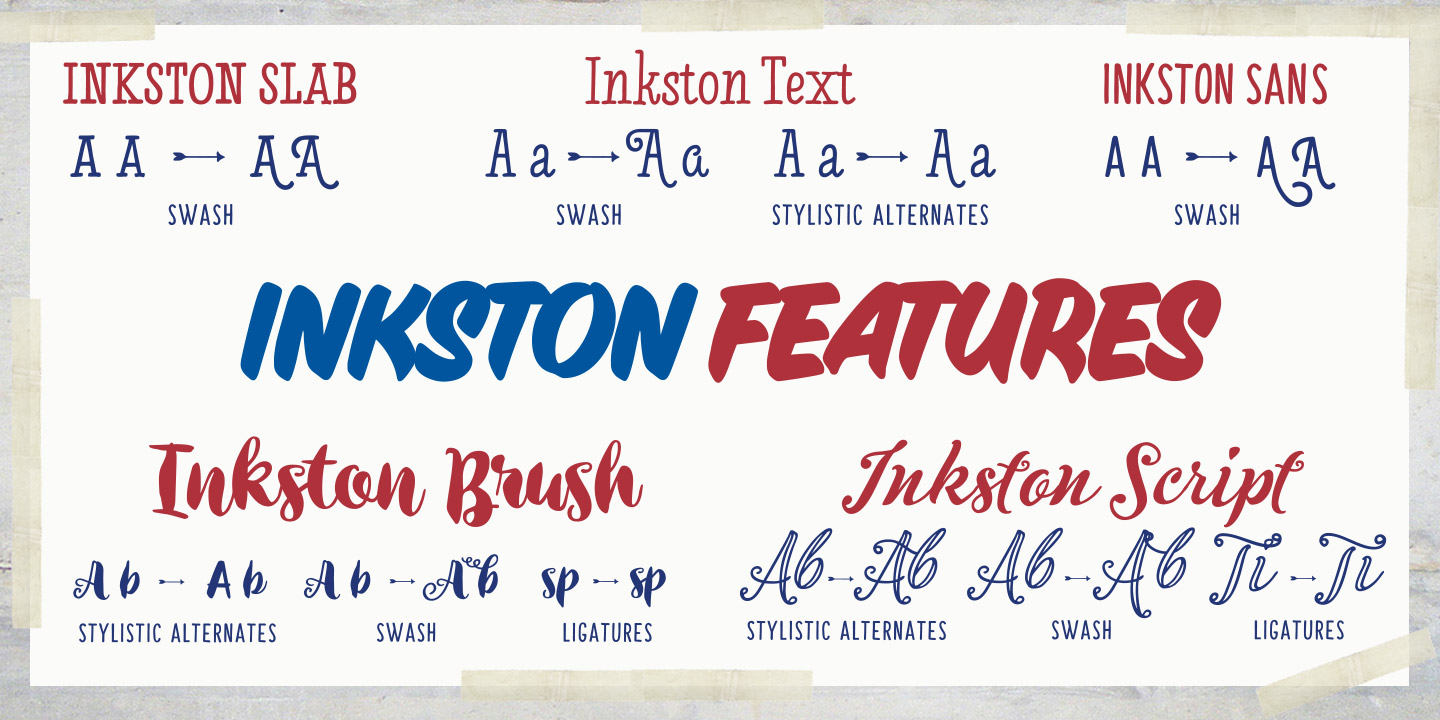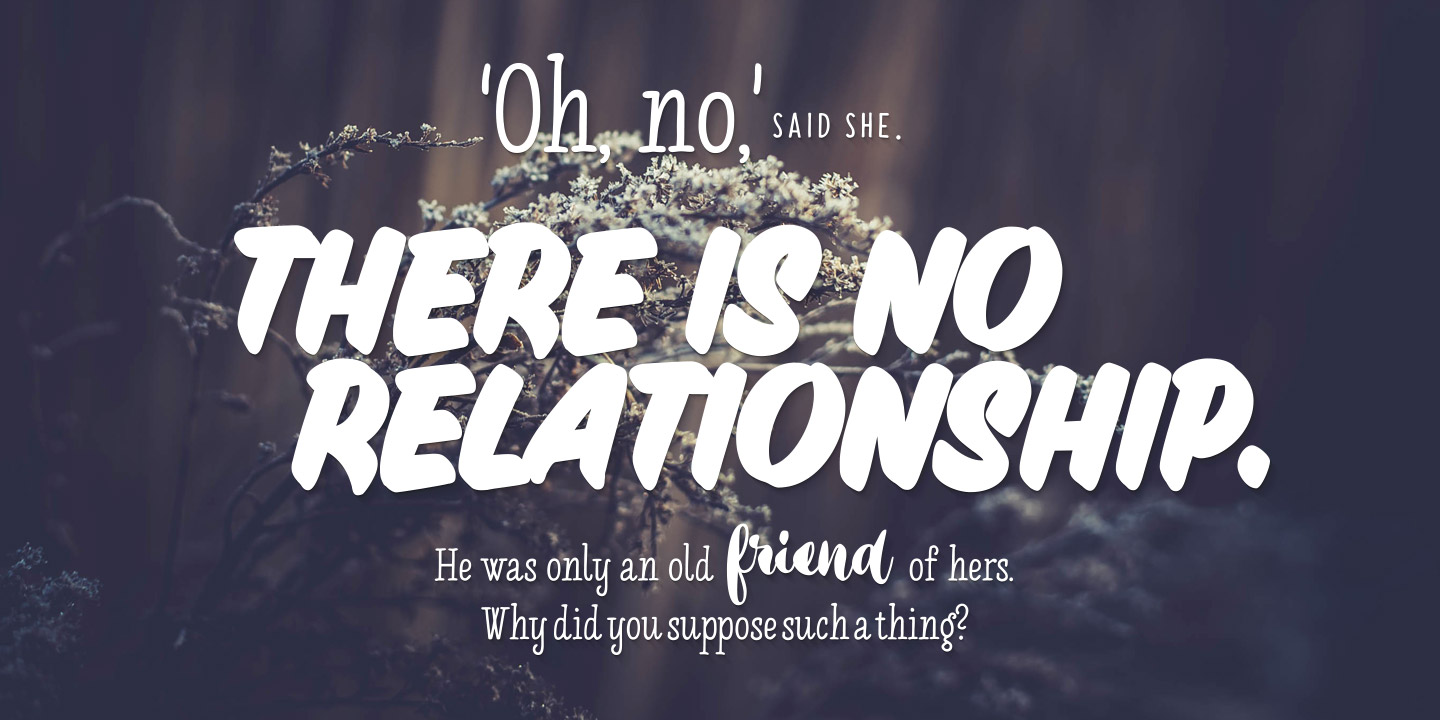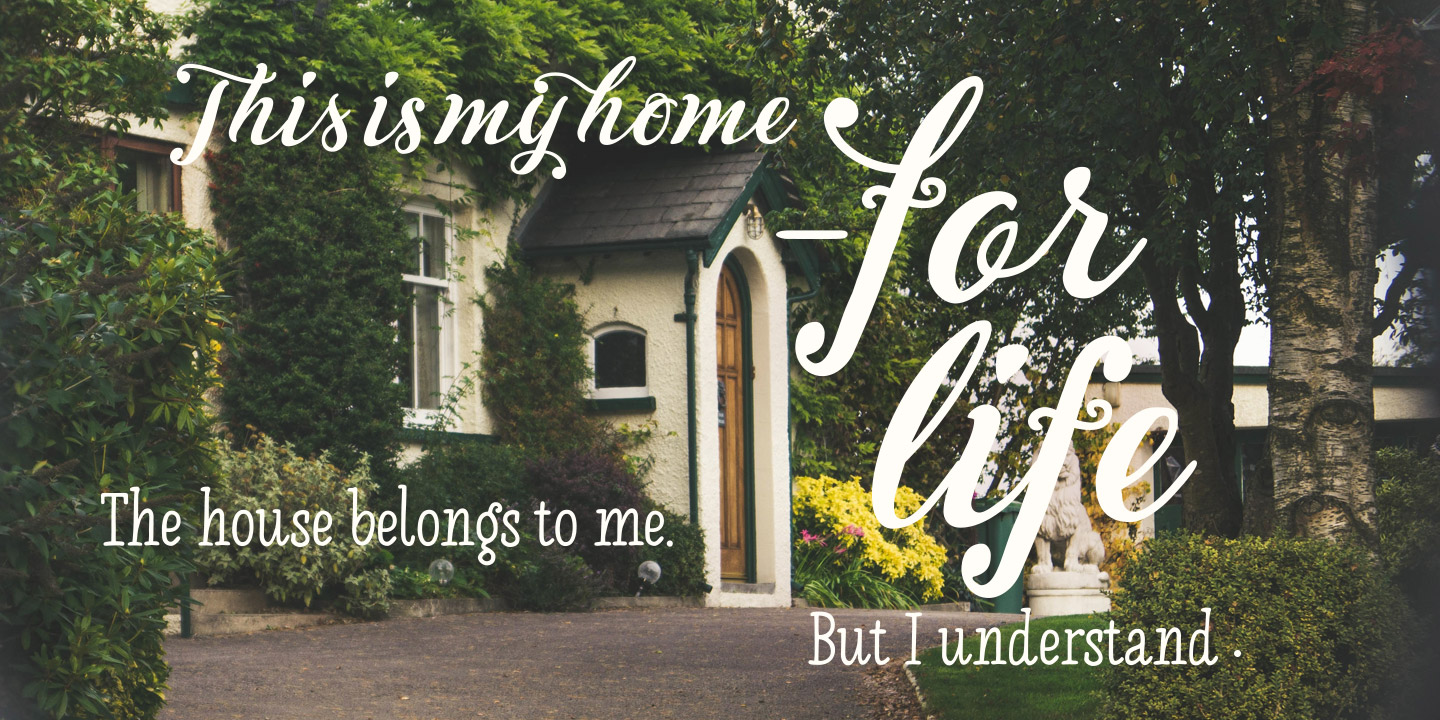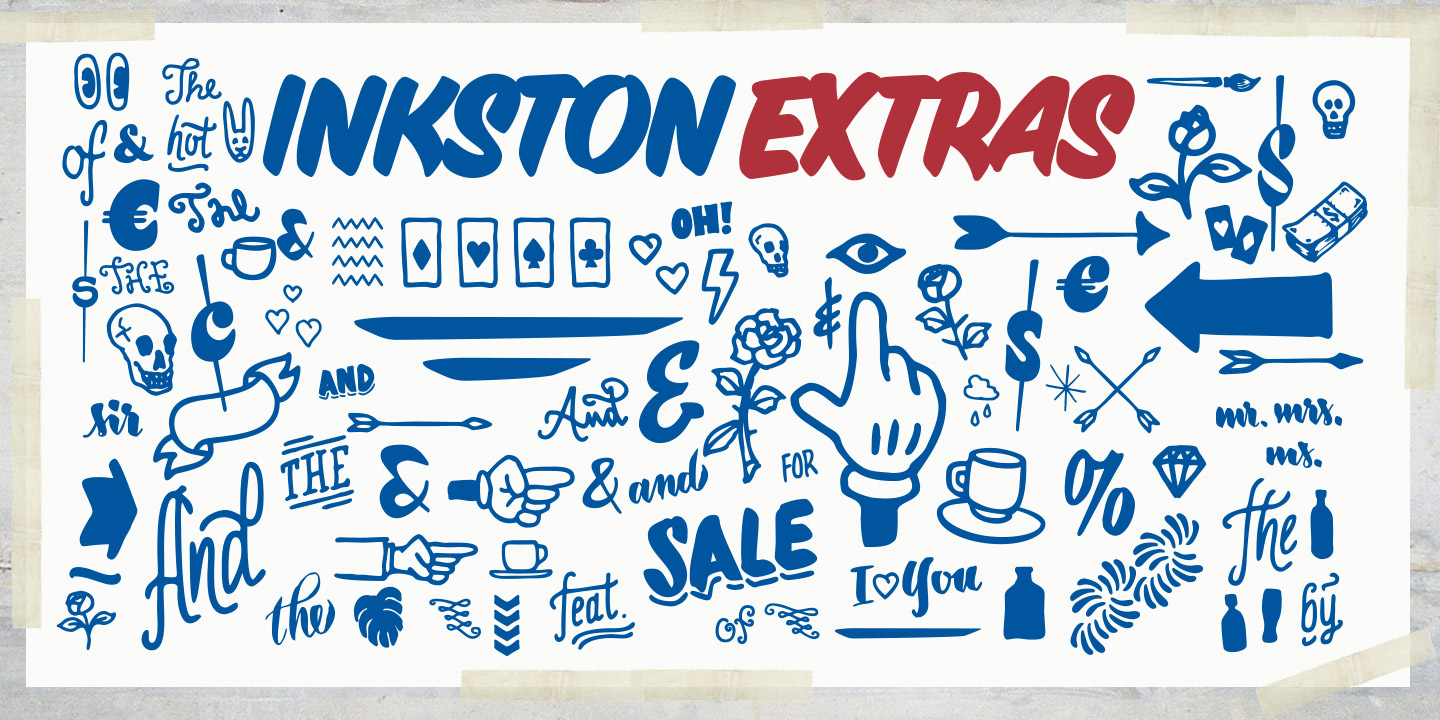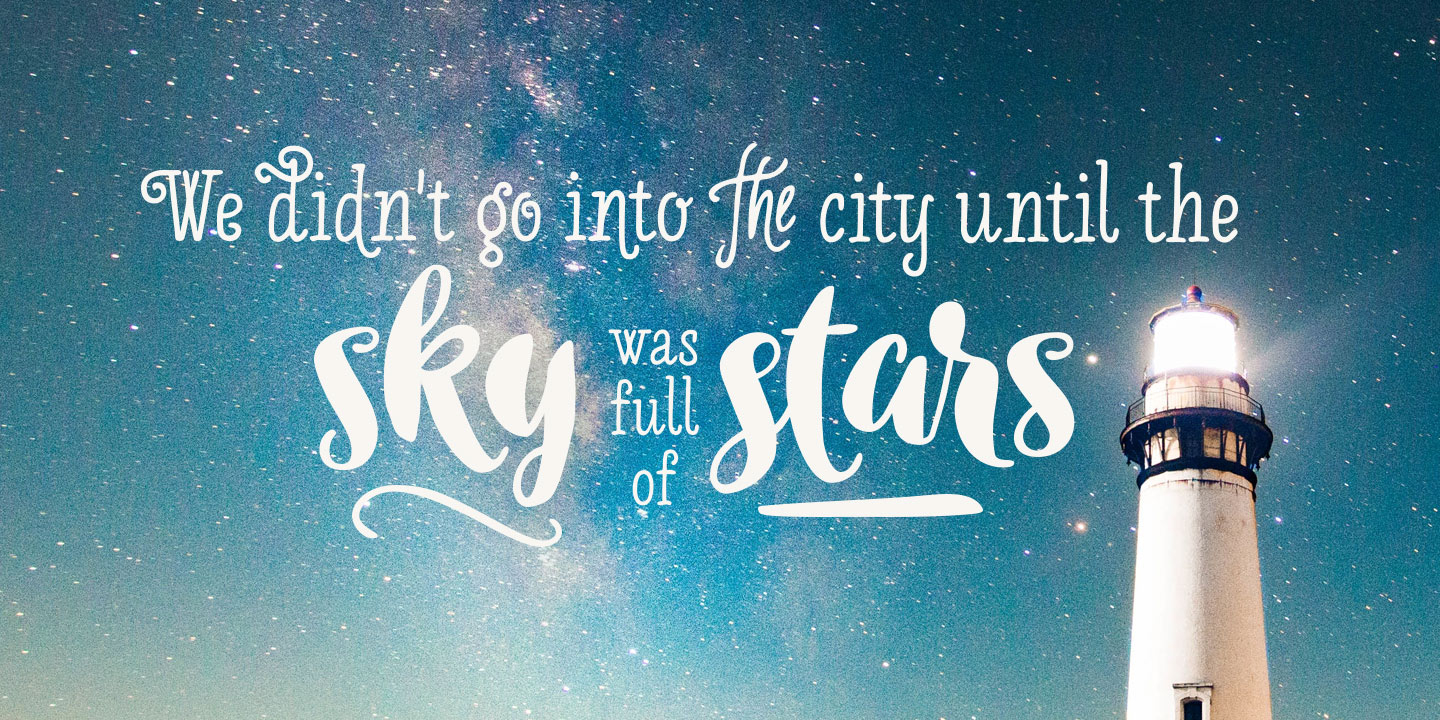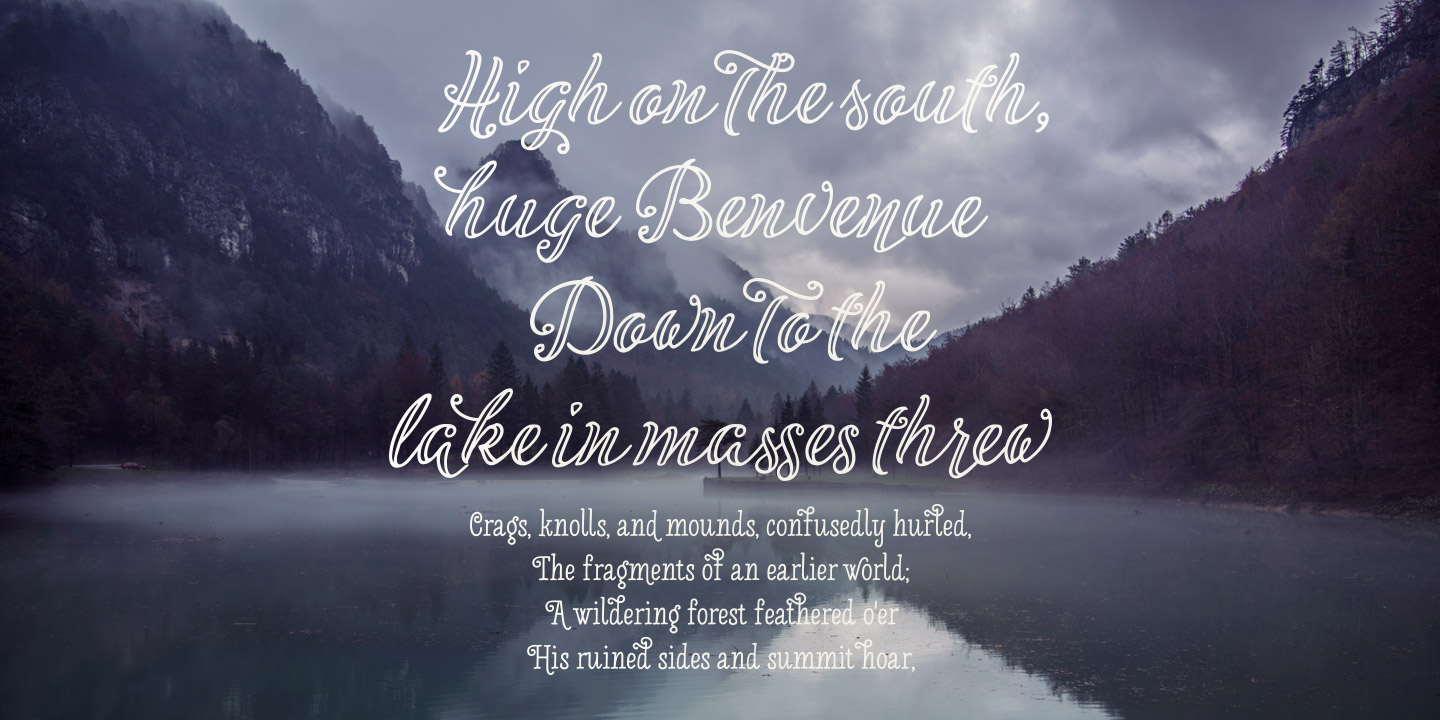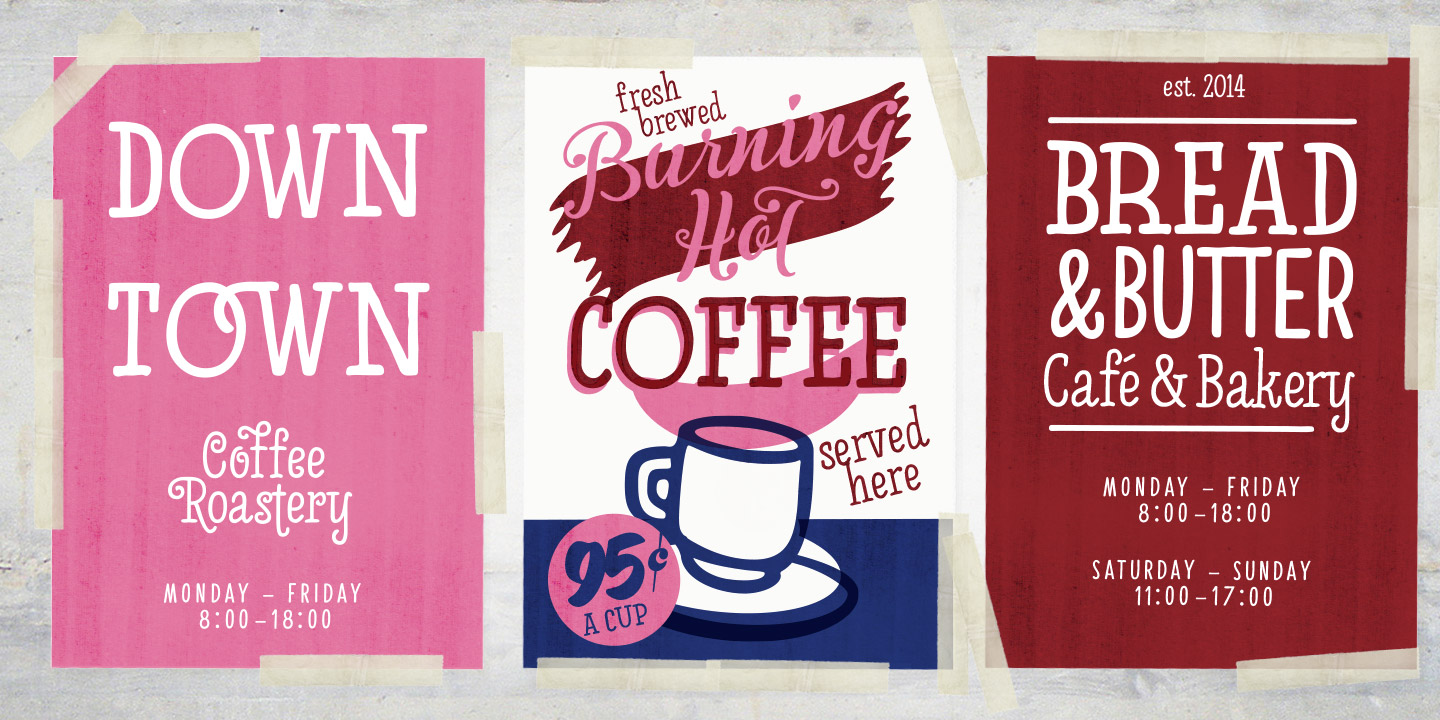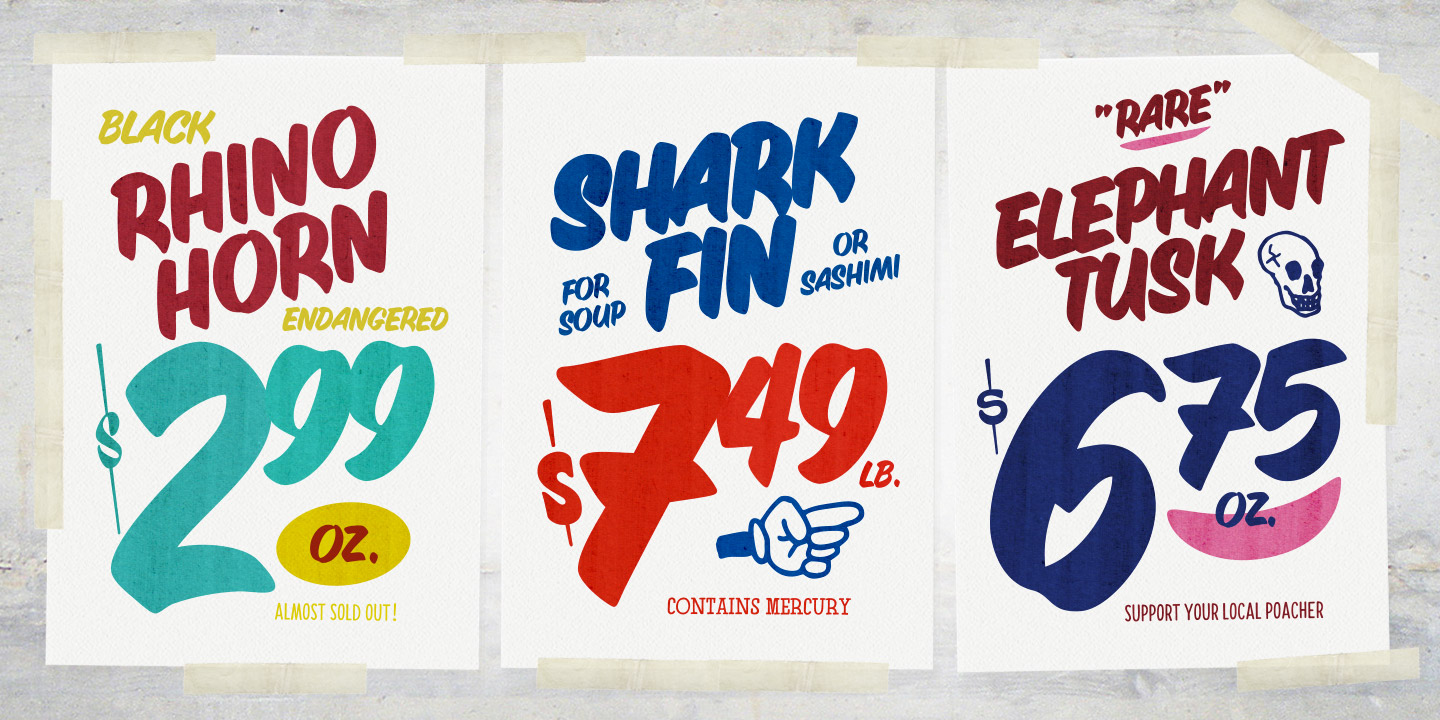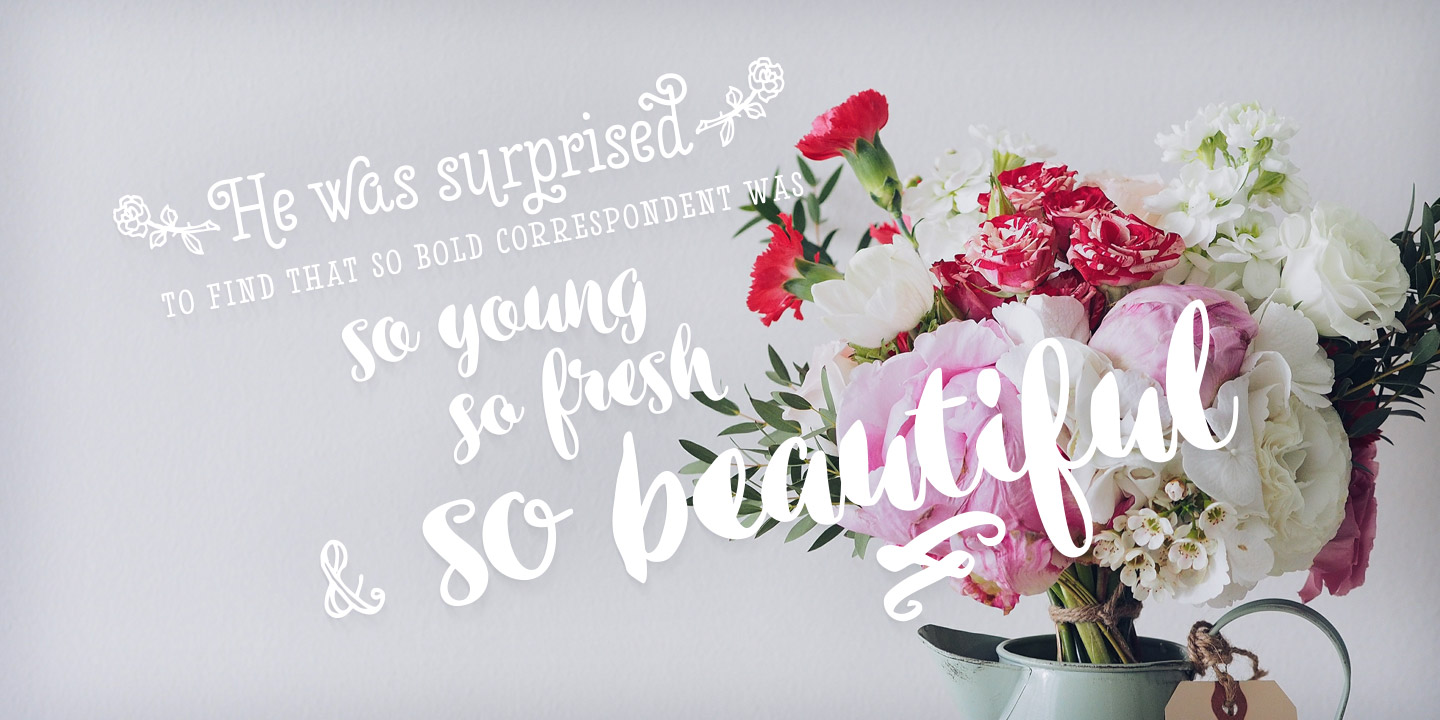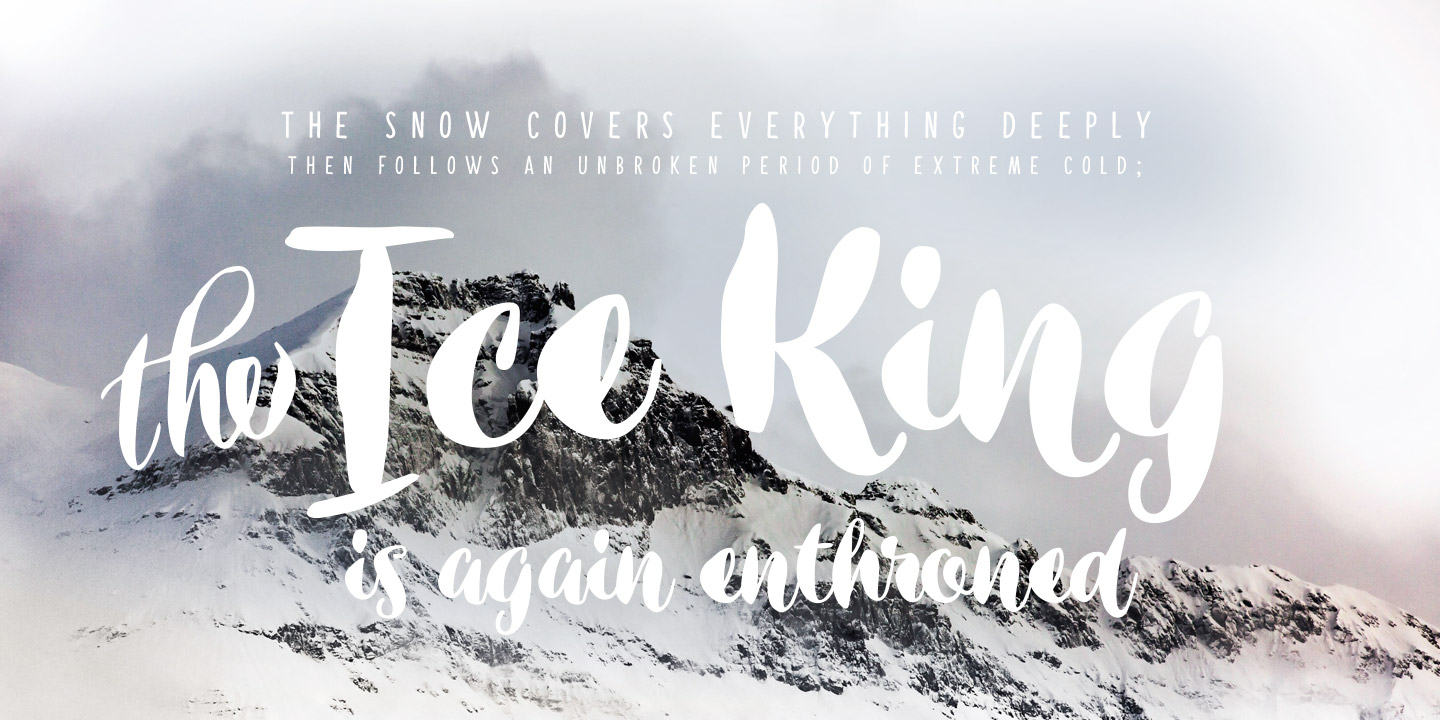
All the fonts are drawn using the same grid and scale so that they play together well. Inkston Extras is a set of pictograms, swashes, ornaments and catchwords designed to support the font. Inkston fonts work nice as they are yet they’re equipped with OpenType features to give you even more tools to customise your design.
Try combining any two or more of the fonts for impressive results. Purchase the whole collection for the best price and go crazy with the possibilities! Inkston collection will go for anything from cute to artisanal to streetwise hand lettering style.